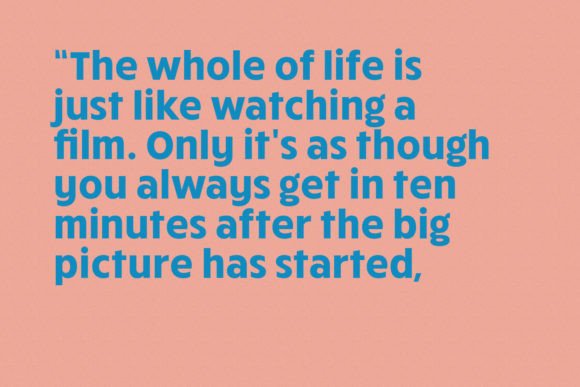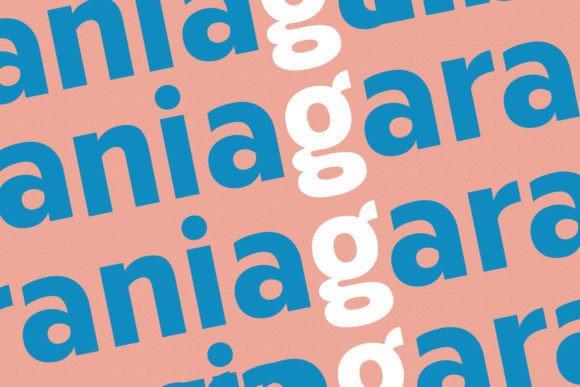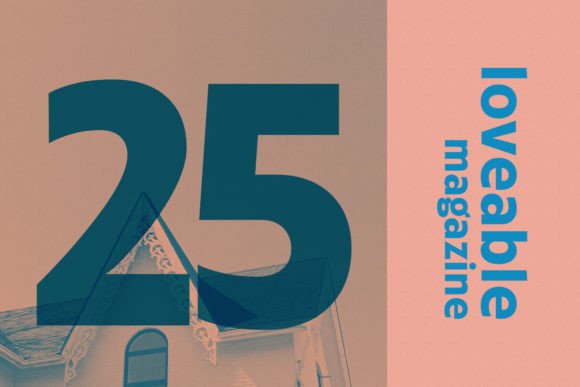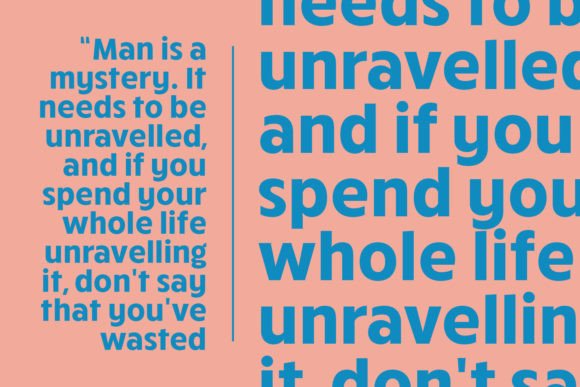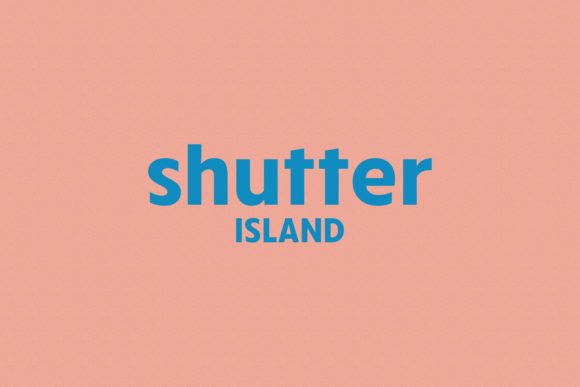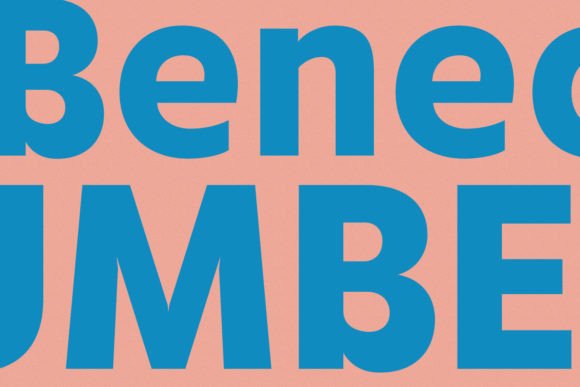
Introducing Bolga Font: The Modern Decorative Sans Display Font
In the world of typography, fonts play a crucial role in conveying messages, expressing emotions, and creating visual identities. For designers, crafters, and creative enthusiasts, finding the perfect font can be a daunting task. However, if you’re looking for a modern decorative sans display font that can elevate your designs, look no further than Bolga Font.
What is Bolga Font?
Bolga is a contemporary decorative sans display font that boasts bold strokes, fun characters, and a dash of ligatures and alternates. This font is designed to make a statement, adding a touch of personality and whimsy to any design project. Whether you’re working on a logo, social media graphics, movie titles, book titles, or even long text letters, Bolga Font is an excellent choice.
Key Features of Bolga Font
- Bold Stroke: Bolga Font features bold strokes that give it a confident and modern look.
- Fun Characters: The font includes a range of fun and playful characters that can add a touch of personality to your designs.
- Ligatures and Alternates: Bolga Font comes with ligatures and alternates, allowing you to experiment with different typography styles.
- Versatility: This font is suitable for a wide range of design projects, from logo design and social media graphics to movie titles, book titles, and long text letters.
Use Cases for Bolga Font
Bolga Font is an incredibly versatile font that can be used in various design projects. Here are some use cases where Bolga Font shines:
- Logo Design: Create a bold and memorable logo with Bolga Font that stands out from the crowd.
- Social Media Graphics: Use Bolga Font to create eye-catching social media graphics, such as Facebook posts, Instagram stories, and Twitter headers.
- Movie Titles: Add a touch of glamour to your movie titles with Bolga Font’s bold and decorative style.
- Book Titles: Create stunning book titles with Bolga Font that grab the reader’s attention.
- Long Text Letters: Bolga Font is also suitable for long text letters, making it an excellent choice for newsletters, brochures, and other written content.
- Secondary Text Font: Pair Bolga Font with script or serif fonts to create a visually appealing contrast in your designs.
Why Choose Bolga Font?
With so many fonts available, why choose Bolga Font? Here are a few reasons why Bolga Font stands out:
- Unique Style: Bolga Font offers a unique and modern decorative style that can elevate your designs.
- Easy to Read: Despite its bold and decorative style, Bolga Font remains easy to read, making it suitable for a wide range of design projects.
- Customizable: With ligatures and alternates, you can experiment with different typography styles to create a customized look.
Tips for Using Bolga Font
To get the most out of Bolga Font, here are some tips:
- Experiment with Ligatures and Alternates: Don’t be afraid to try out different ligatures and alternates to create a unique look.
- Pair with Other Fonts: Pair Bolga Font with script or serif fonts to create a visually appealing contrast.
- Use Bold Strokes: Take advantage of Bolga Font’s bold strokes to create a statement piece.
In conclusion, Bolga Font is a modern decorative sans display font that can add a touch of personality and whimsy to any design project. With its bold strokes, fun characters, and ligatures and alternates, Bolga Font is an excellent choice for designers, crafters, and creative enthusiasts. Whether you’re working on a logo, social media graphics, movie titles, book titles, or long text letters, Bolga Font is sure to make a stunning impact. So why wait? Try Bolga Font today and take your designs to the next level!